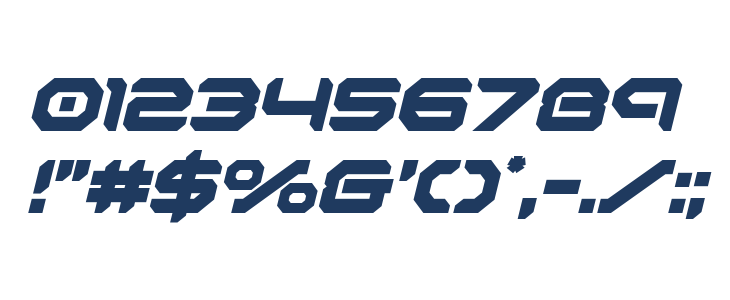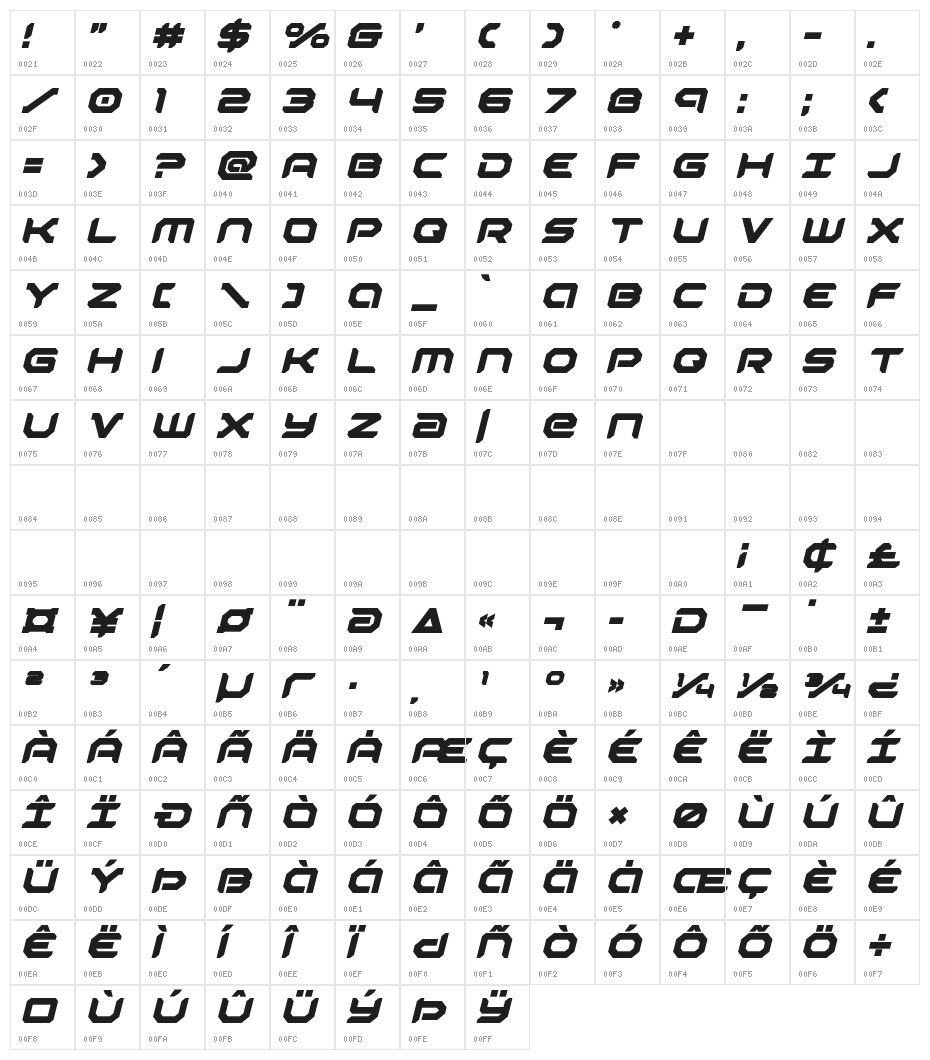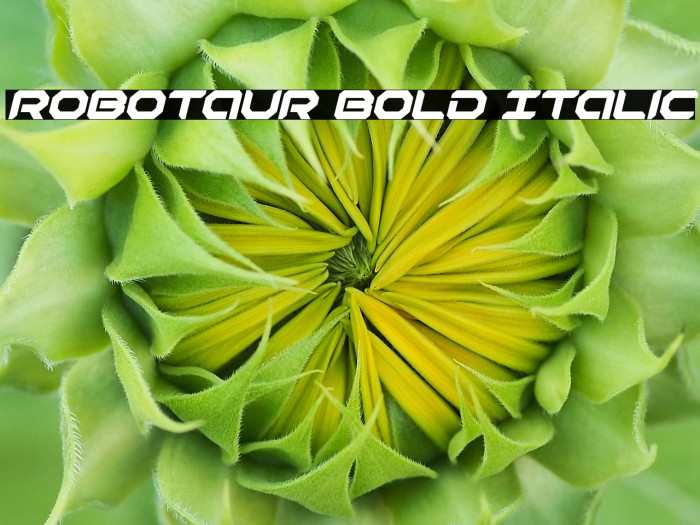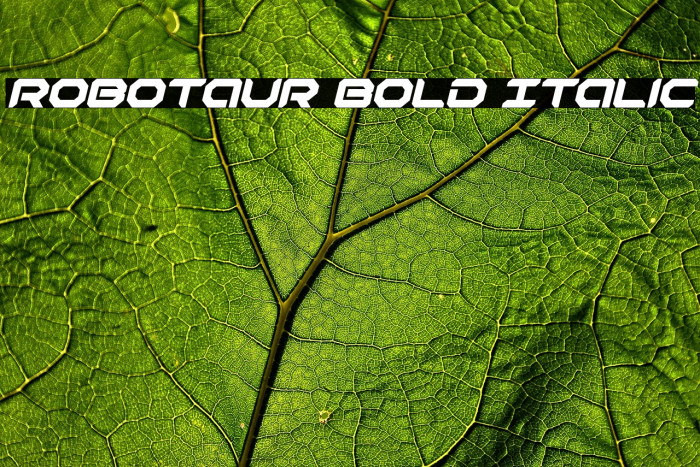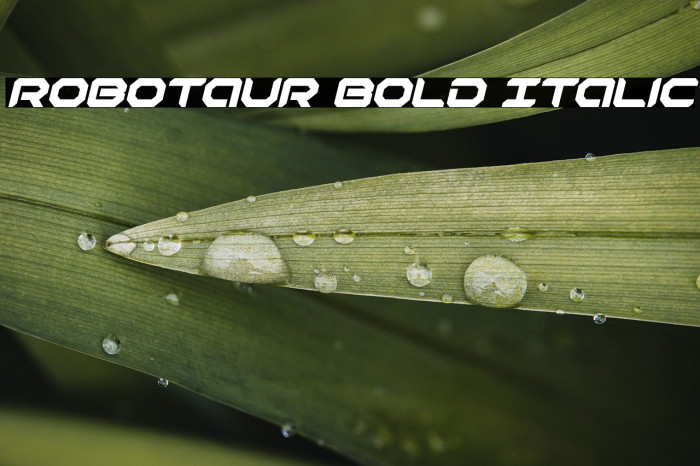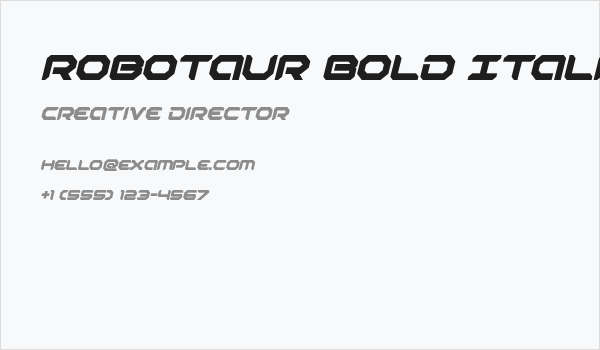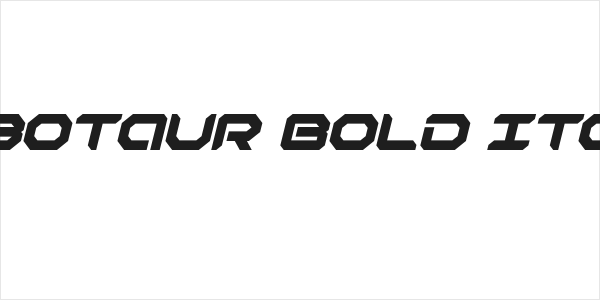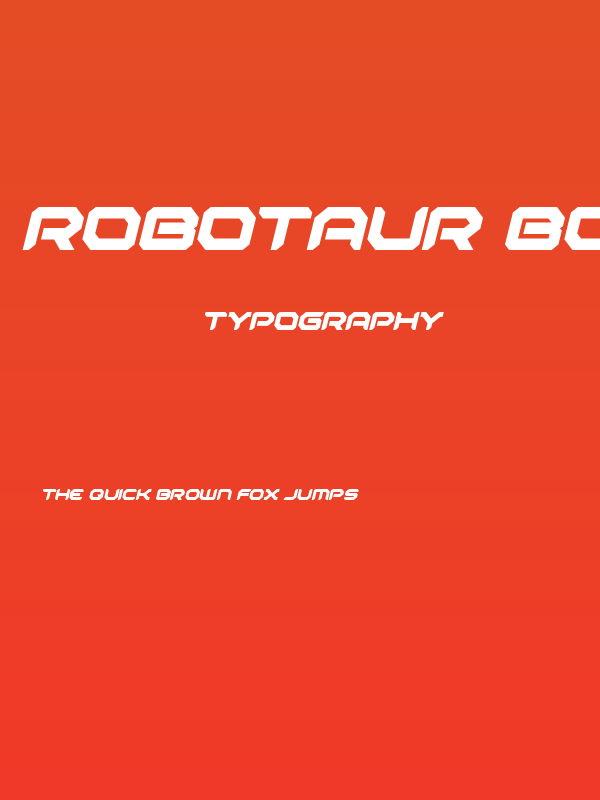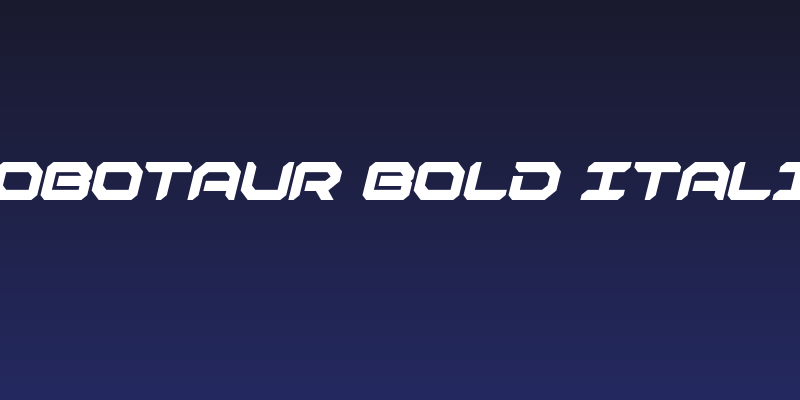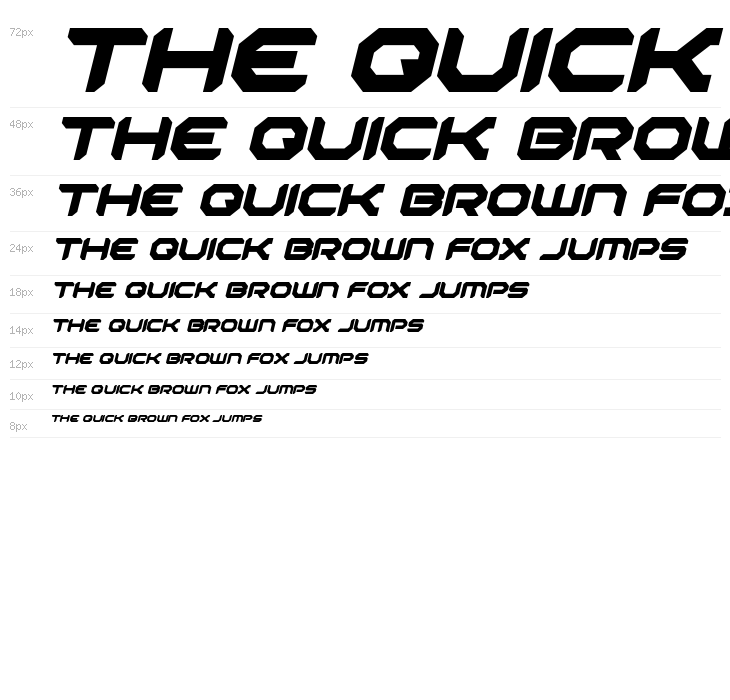
Robotaur Bold Italic Font
Robotaur Bold Italic Description
This font features a futuristic and angular design, characterized by its bold and italicized style. The letters are crafted with sharp edges and geometric shapes, giving it a modern and tech-inspired appearance. The uppercase and lowercase letters maintain a consistent angular theme, while the numbers and special characters follow suit with a cohesive design. The font's boldness is evident in its thick strokes, and the italic slant adds a dynamic and forward-moving feel. This style is particularly suitable for projects that require a strong, contemporary aesthetic.